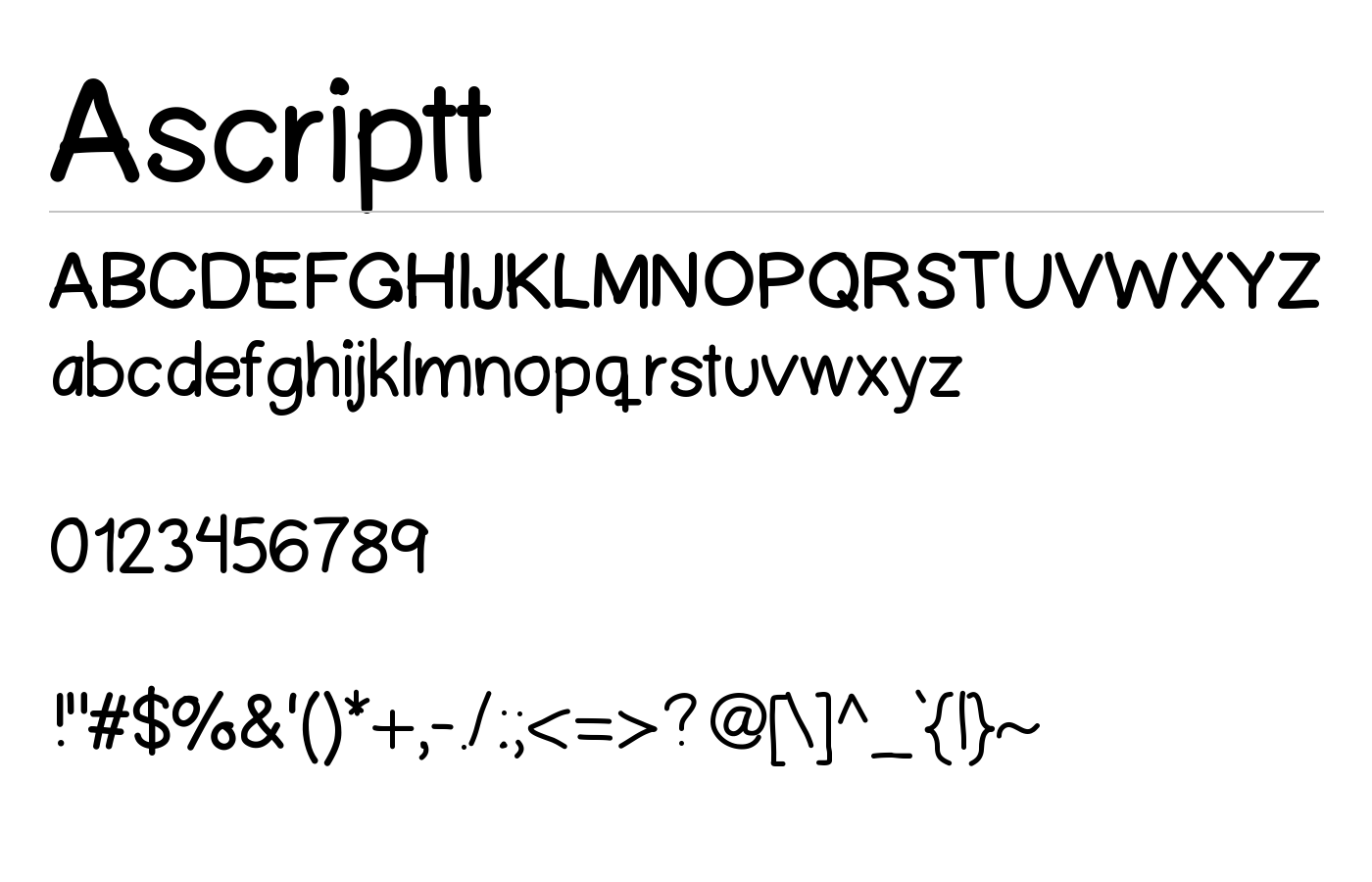
Ascriptt is a playful and casual sans serif font that mimics natural handwriting with its slightly irregular letterforms and soft, rounded strokes. It features a light to regular weight with a moderate x-height, lending an approachable and friendly feel ideal for informal or creative projects. Its handwritten style works especially well for children’s materials, personal branding, or any design seeking a warm, whimsical touch.
Ascriptt Font
About Ascriptt Font